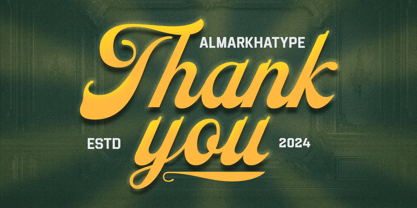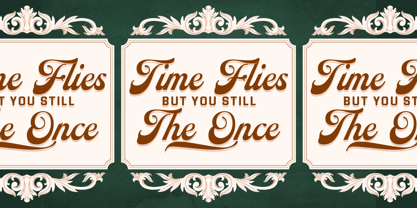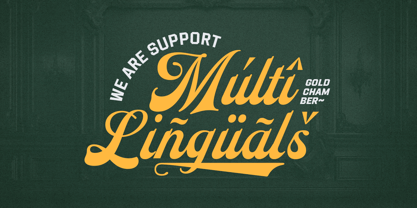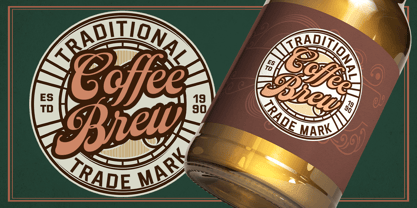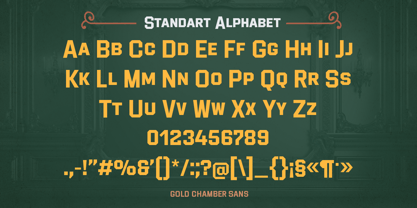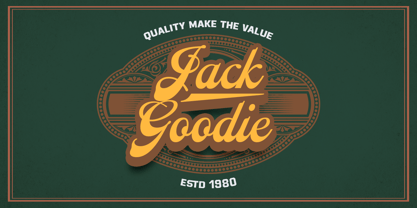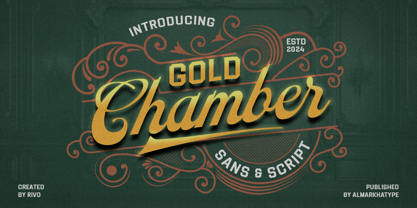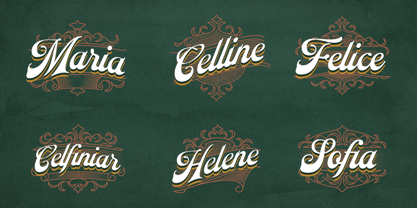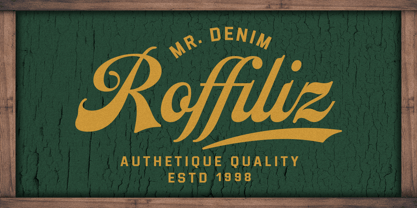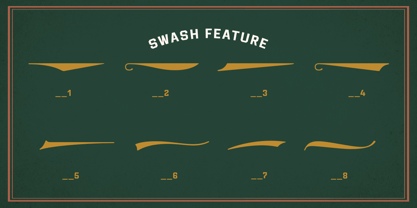
Gold Chamber
von Almarkha Type
Die Schriftfamilie Gold Chamber wurde von Abdul Malik Wisnu entworfen und von Almarkha Type veröffentlicht. Gold Chamber enthält 1 Stile. Mehr über diese Familie
Introducing Gold Chamber, a bold and elegant script font featuring smooth curves, flowing strokes, and a vintage-inspired character. Its stylish letterforms add warmth and personality to logos, packaging, posters, branding, apparel, and social media. This font is perfect for creative projects that require a classic, expressive, eye-catching, and memorable touch in every design.
Designer: Abdul Malik Wisnu
Foundry: Almarkha Type